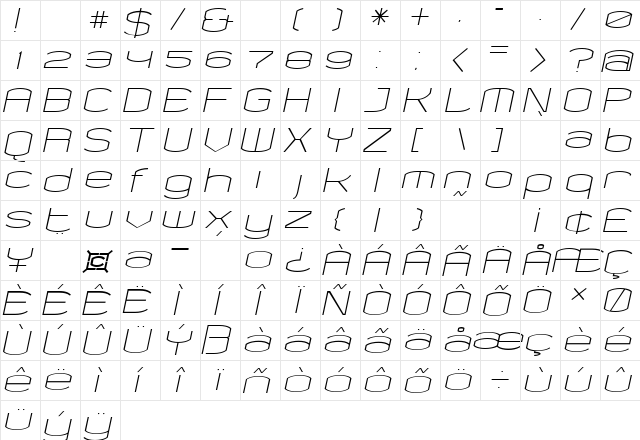
Chord RegularItalic
Design Context for Chord Typeface
Chord is a composed and adaptable typeface that performs quietly and consistently across a wide range of design contexts. Its italic angle brings a sense of urgency and motion to the letterforms.
Pro Tip: Try Chord for annotation and caption copy alongside an upright companion — the contrast in angle creates a dynamic but ordered typographic system.